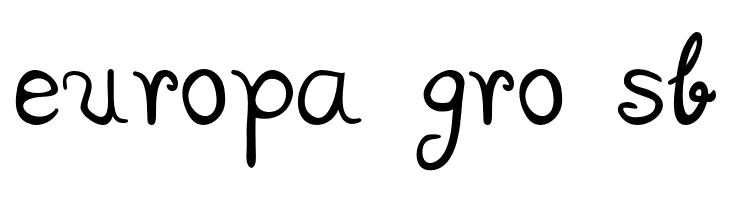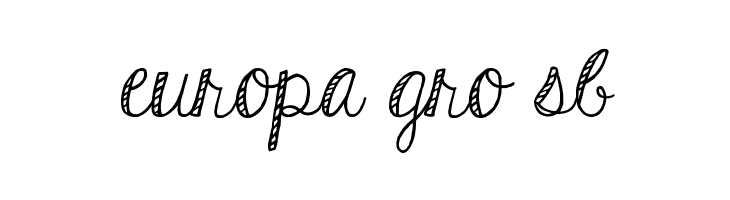
A whimsical, decorative font with playful curls and loops.
A playful and whimsical font with curly, flowing letterforms and a lively appearance.
A bold, playful font with exaggerated, uneven strokes and a hand-drawn feel.
A playful script font with a striped, candy-like appearance.
A decorative font with Irish-themed illustrations replacing characters.
A whimsical, hand-drawn font with playful swirls and decorative elements.